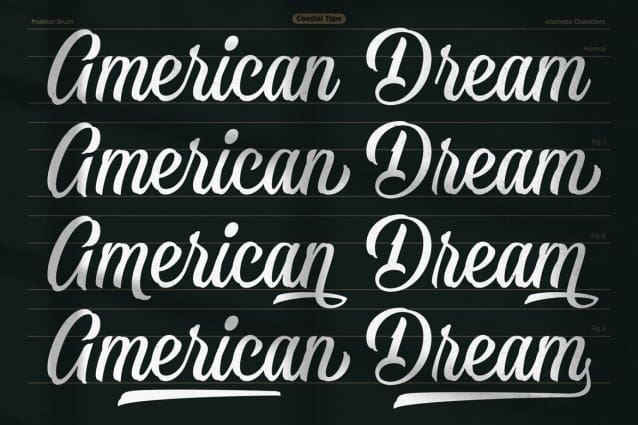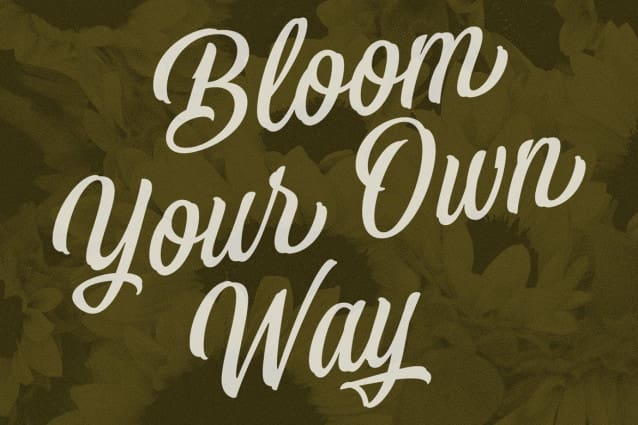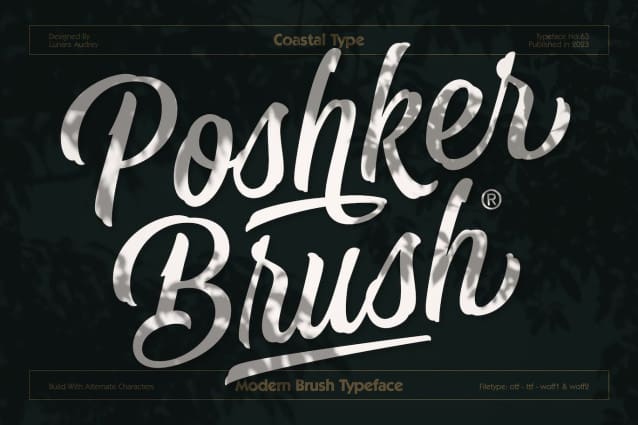
Poshker Brush Font
Poshker Brush Font, where modern retro meets timeless elegance! A smooth, lined brush typeface that effortlessly combines a touch of modernity with a touch of retro charm. With its sets of organic uppercase letters and a myriad of alternatives for lowercase letters, PoshkerBrush emerges as the ideal choice for logo design